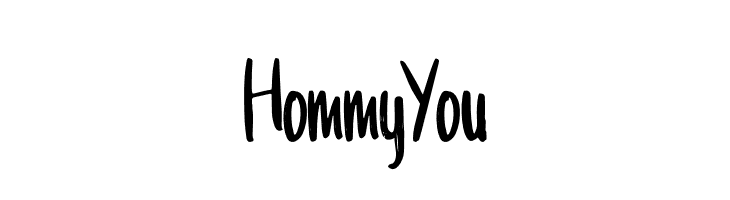
A bold, expressive handwritten font with dynamic strokes.
An elegant, flowing script font with a modern, calligraphic style.
A dynamic and expressive handwritten font with fluid, elegant strokes.
A bold, expressive script font with fluid, sweeping strokes and a modern, stylish appearance.
A casual, elegant handwritten font with flowing cursive letterforms.
A bold and elegant font with dramatic strokes and subtle curves.
A playful and elegant script font with dynamic contrast and fluidity.
A playful handwritten font with a casual and friendly style.
A lively, cursive script font with fluid, connected strokes.
An elegant, flowing script font with smooth, cursive strokes and graceful curves.